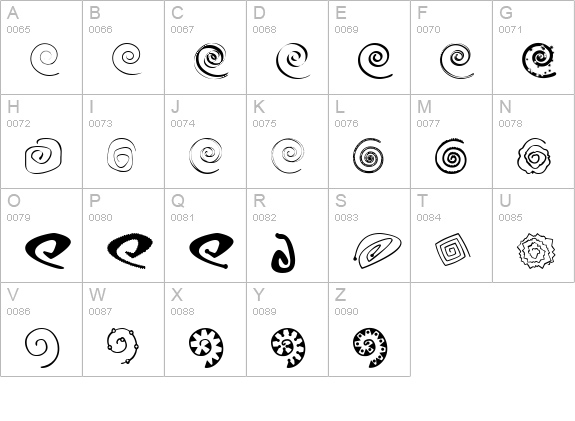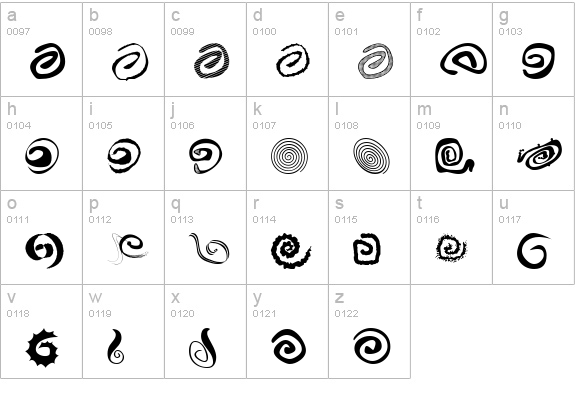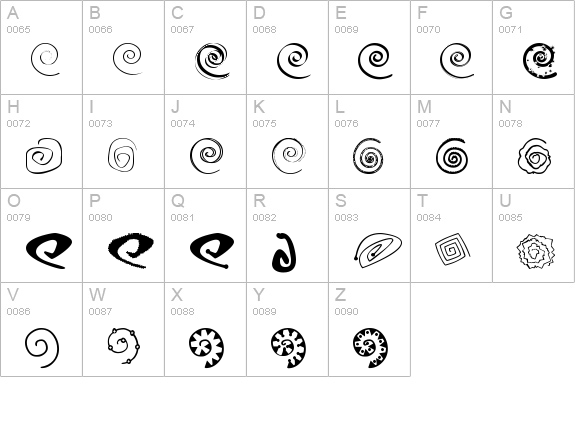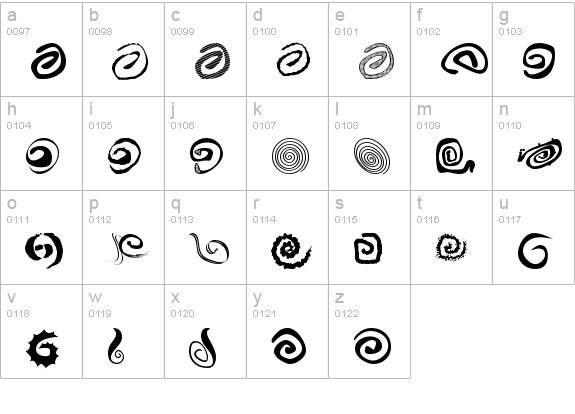
xspiralmental Font Details
The xspiralmental font is a unique and eye-catching typeface that brings a modern and dynamic look to any design. With its intricate spiral patterns and edgy design elements, this font is perfect for projects that require a bold and striking appearance. The xspiralmental font is freely available for download at FontsMarket.com, making it easily accessible for designers and creatives looking to add a touch of creativity to their work. Whether you're working on a poster, logo, or website, this font is sure to make a statement and leave a lasting impression on your audience. So go ahead and download the xspiralmental font today and let your creativity spiral to new heights!